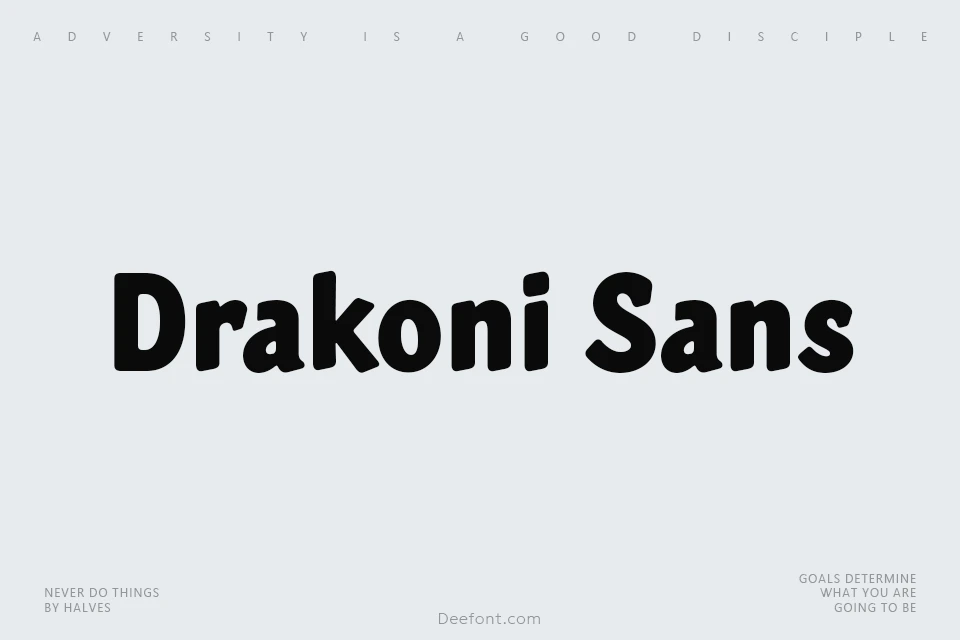
Drakoni Sans Font
Drakoni Sans Font is a bold and rounded typeface that masterfully balances strict angular aesthetics with humanist touches. Created by designer Måns Grebäck, this font features clean lines and subtle curves that make it both modern and approachable. Its versatile design makes it particularly suitable for branding, packaging, advertisements, and social media graphics. The font family offers multiple weights and styles, allowing for dynamic typographic hierarchies. With its aggressive yet refined character, Drakoni Sans delivers a contemporary feel while maintaining excellent legibility, making it an ideal choice for both display purposes and shorter text blocks.